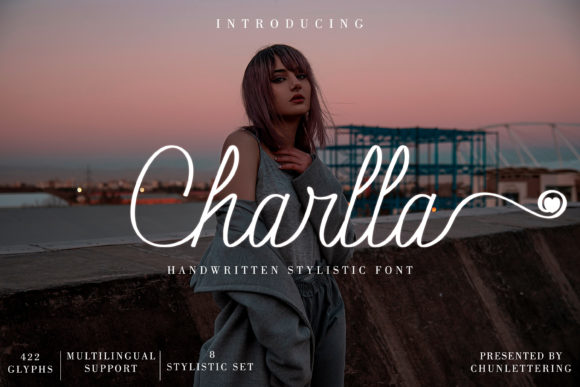
Charlla Font
Are you ready to unlock the magic of captivating designs that leave an unforgettable impression? Introducing Charlla Font, the exquisite script font that will elevate your creative vision to new heights!
Indulge in the enchanting world of Charlla, where elegance and modernity collide. Its meticulously crafted strokes dance across the page with delicate grace, adding a touch of sophistication to every design. Dive into endless possibilities and let your imagination soar as you explore the boundless applications of Charlla.
Picture the allure of wedding invitations adorned with Charlla's timeless beauty, carrying your heartfelt messages with unmatched charm. Envision logos that radiate professionalism and sophistication, leaving a lasting impact on your audience. Unleash your creativity with stunning social media posts that captivate followers, making your brand the talk of the town.
Embrace the versatility of Charlla, a font that adapts seamlessly to diverse design needs. From product packaging designs that exude elegance to labels that convey essential information, Charlla empowers you to elevate your creations. Its delicate strokes lend a touch of refinement to stationery, transforming everyday notes into cherished keepsakes.
Capture the essence of your photography with Charlla's ethereal watermarks, allowing your images to shine with artistic flair. Craft heartfelt greeting cards that evoke emotions and leave a lasting impression on your loved ones. Harness the power of Charlla to create a captivating website that captivates visitors and establishes your online presence with style.
Join the creative revolution and let Charlla Font ignite your imagination. With its timeless appeal and endless possibilities, this extraordinary font will empower you to create designs that transcend expectations and leave a lasting legacy in the world of art and design.